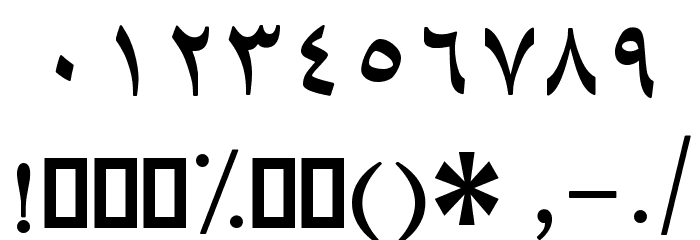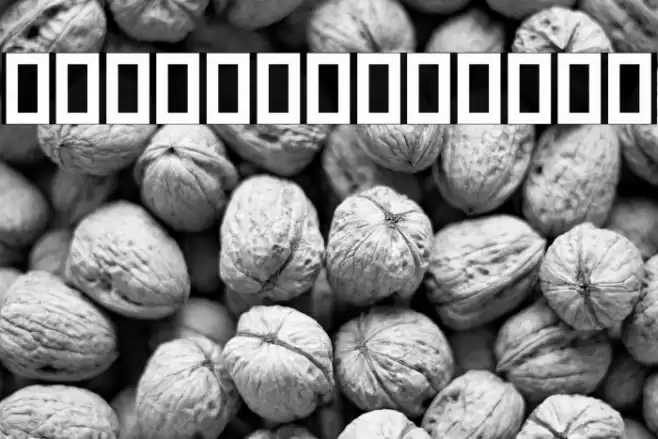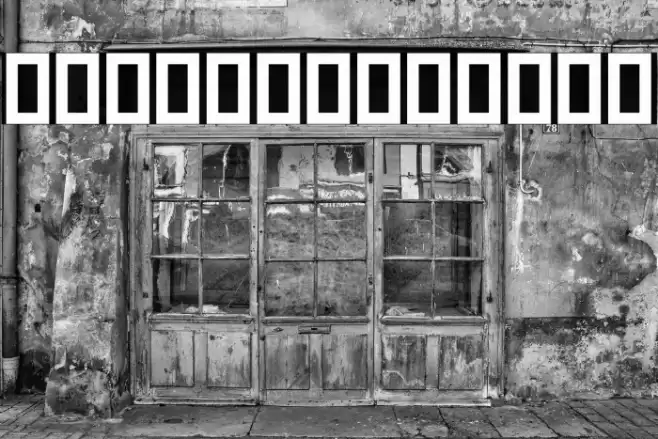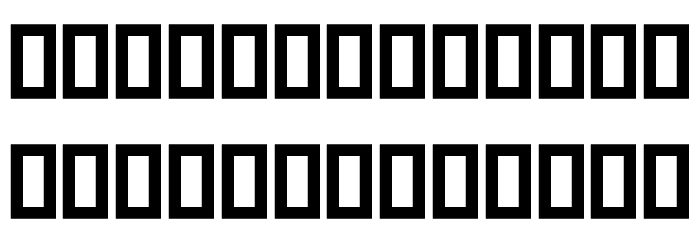
MRT_Talat Font
MRT_Talat Description
This font features a unique blend of modern and traditional elements, characterized by its distinct geometric shapes and clean lines. The characters exhibit a consistent stroke width, providing a uniform appearance across all letters and numbers. The numerals have a slightly curved design, adding a touch of elegance and readability. Special characters are crafted with precision, maintaining the overall aesthetic of the font. This typeface is versatile, suitable for various design applications where clarity and style are paramount.
| Use Case | Headlines, Logos, Signage |
| Proposed Projects | Ideal for branding, signage, and editorial design projects that require a modern and clean look. |